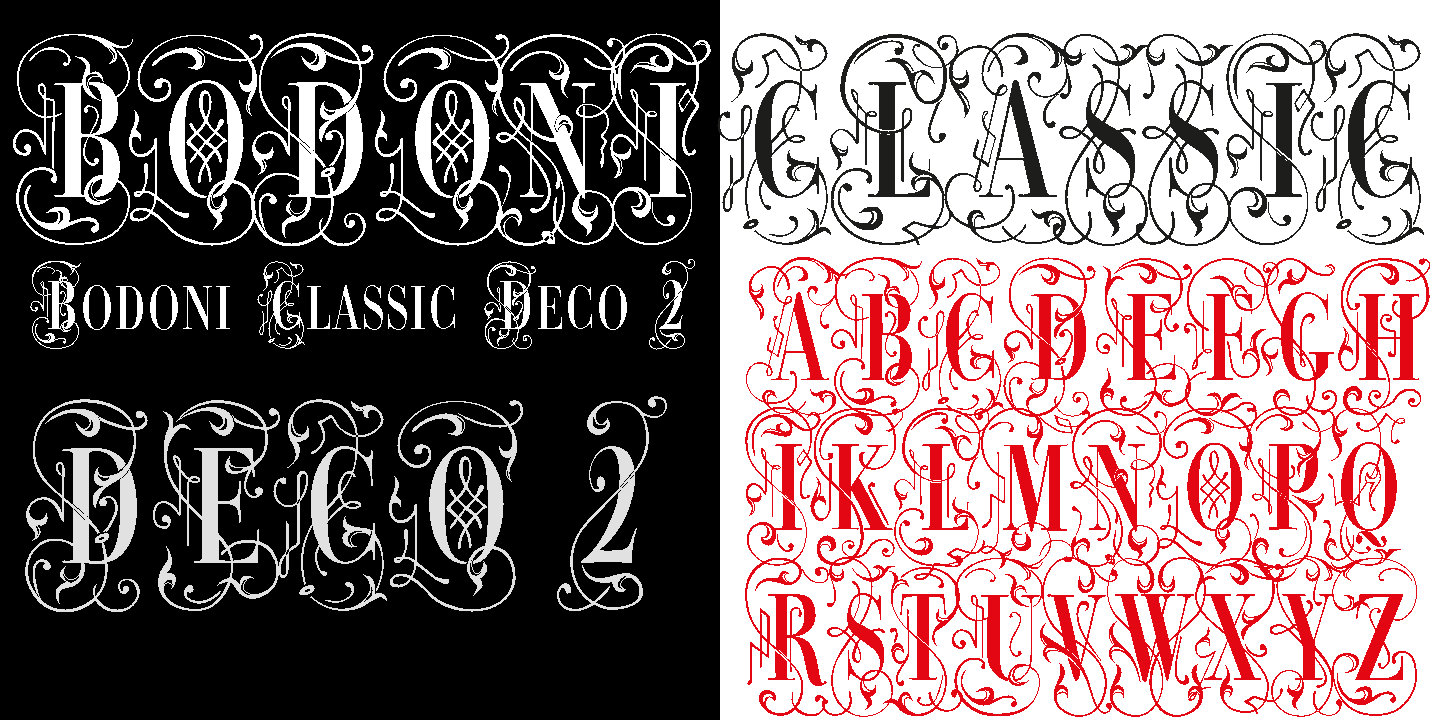
Bodoni Classic Deco Two
Bodoni Classic Deco Two, like the original Bodoni Classic Deco, breaks all rules.
Giambattista Bodoni himself would probably hate me for doing it; he was a real purist. The whole idea of the Bodoni typeface is no embellishments and here I go and decorate those nice clear letters. Shame on me!
But I find this is a very nice and useful typeface for all kinds of cards and certificates. So I just did it for all of you out there that are not born purists, and want a little embellishment to their lives.
And to make things worse, I added a small caps cut. I even decorated the numbers. This Bodoni is the condensed version!!!